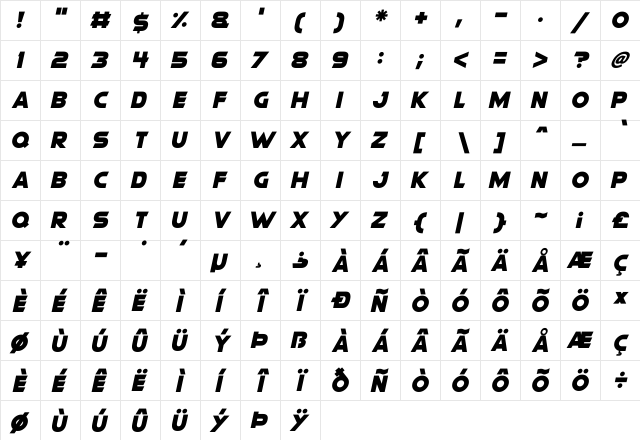
Modern Machine Italic
Design Context for Modern Machine Typeface
Modern Machine offers clean, dependable letterforms without strong stylistic allegiance, making it a practical choice for designers who need flexibility. The dynamic lean of this cut emphasises speed and emphasis in any layout.
Pro Tip: Try Modern Machine for annotation and caption copy alongside an upright companion — the contrast in angle creates a dynamic but ordered typographic system.